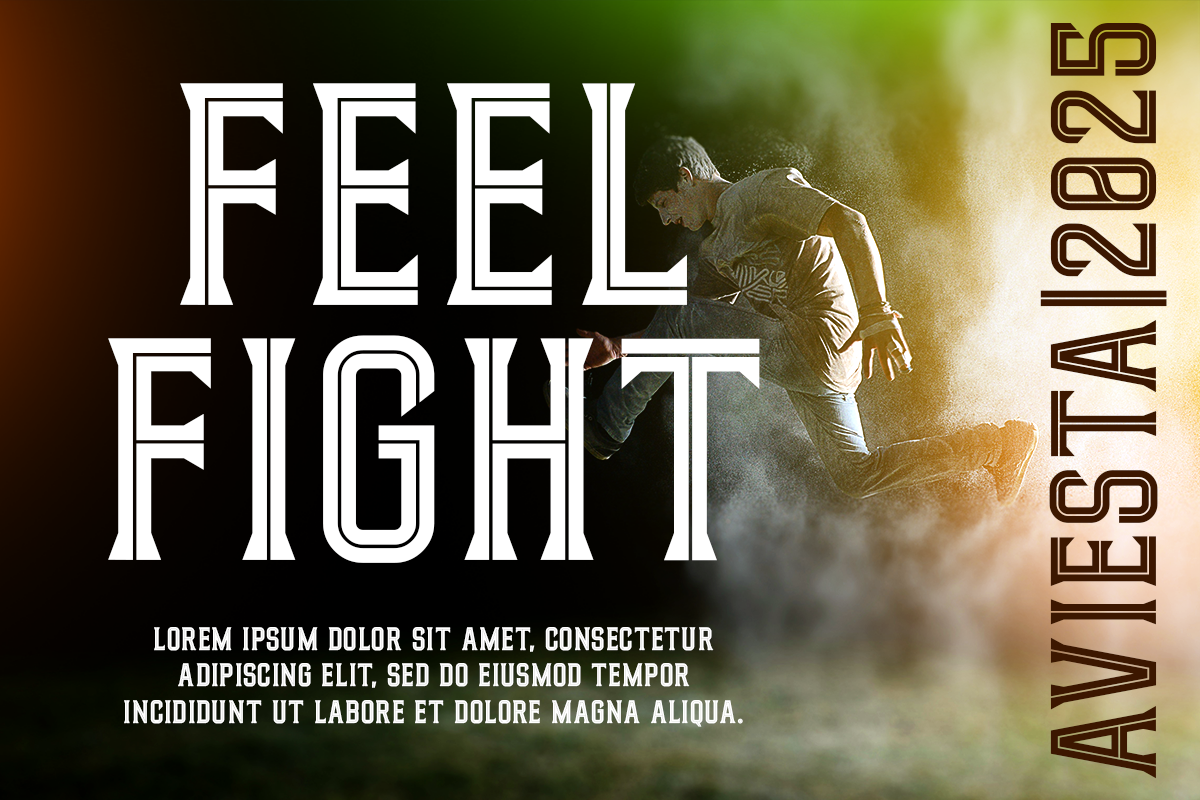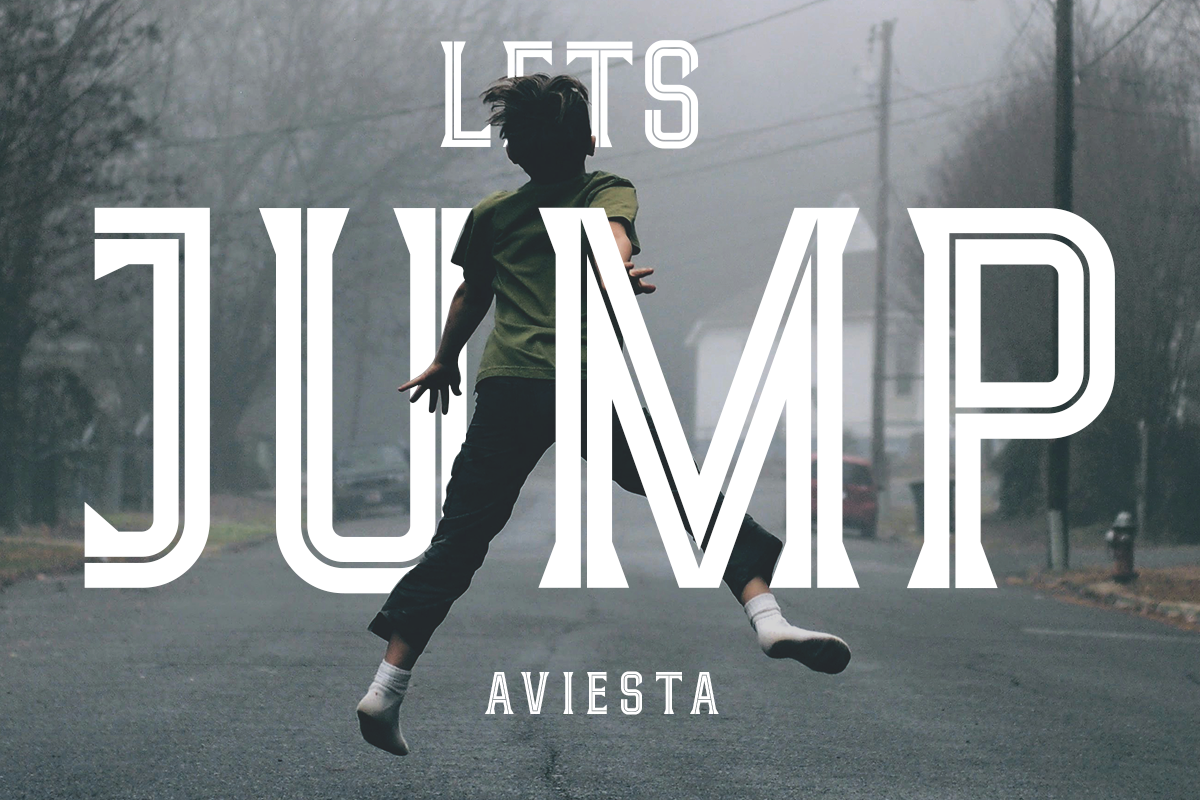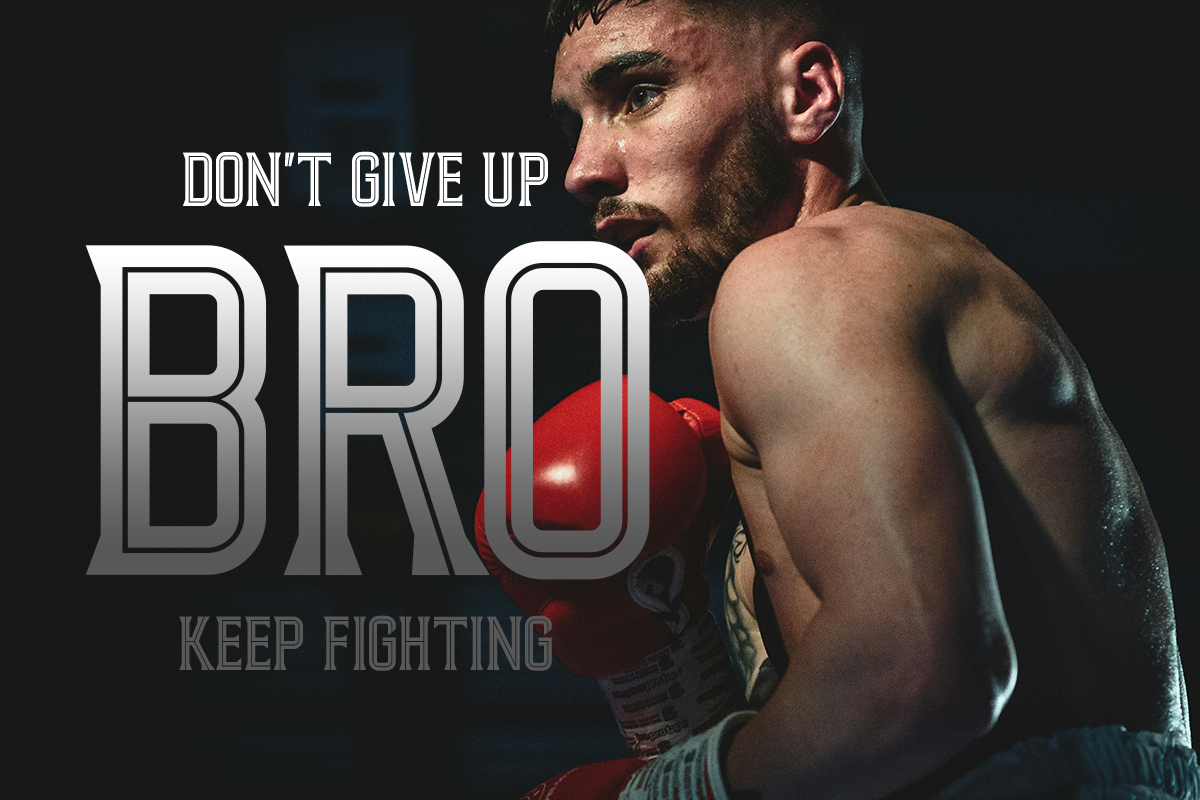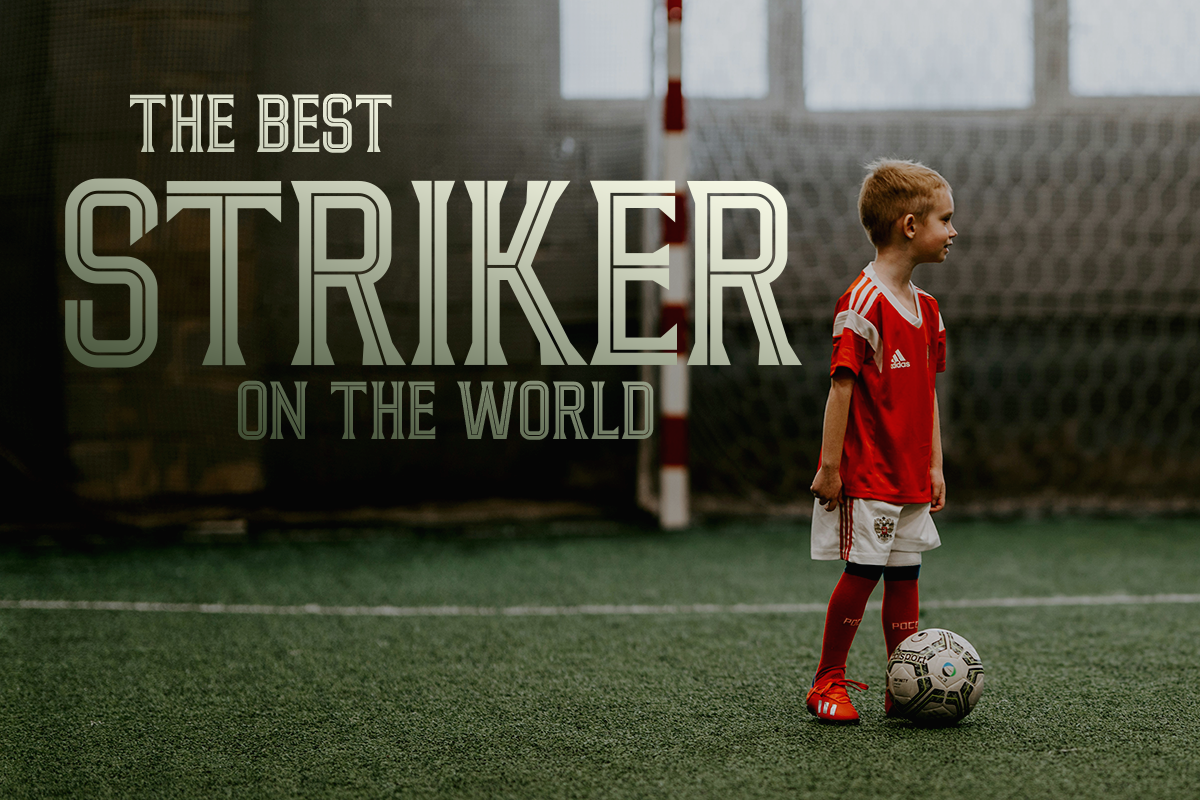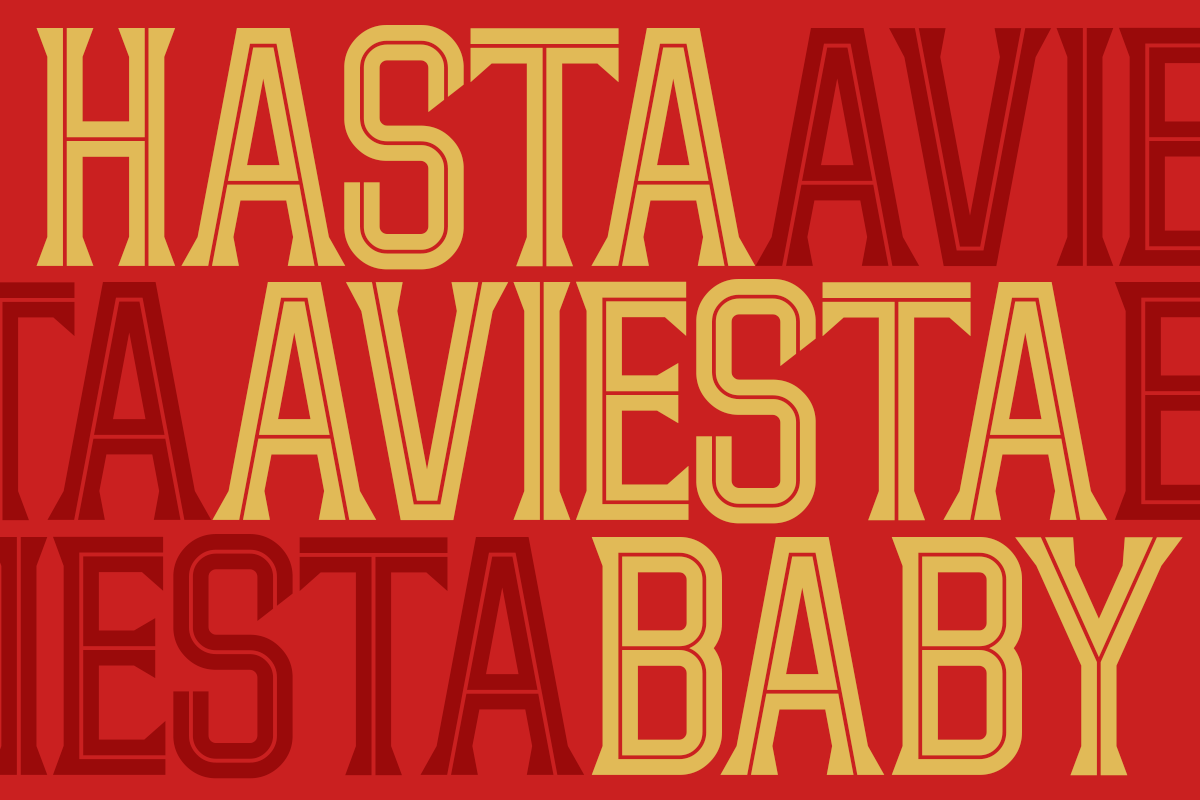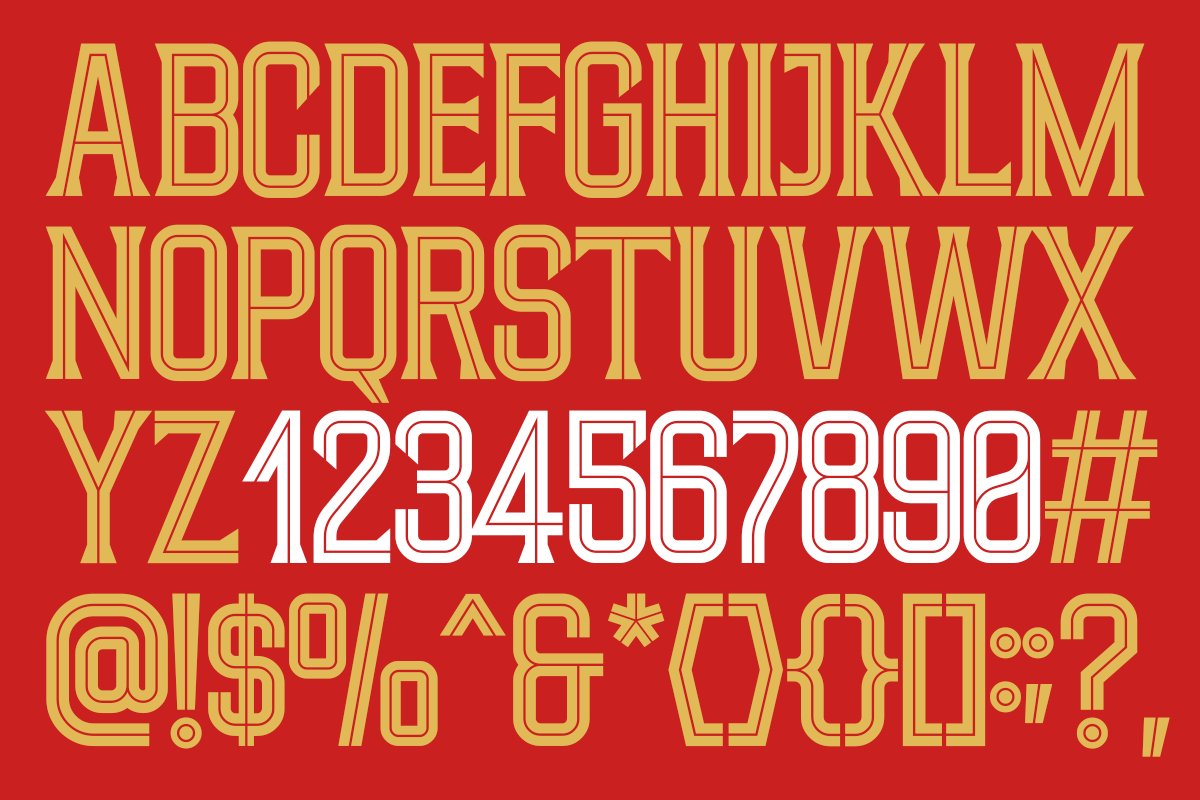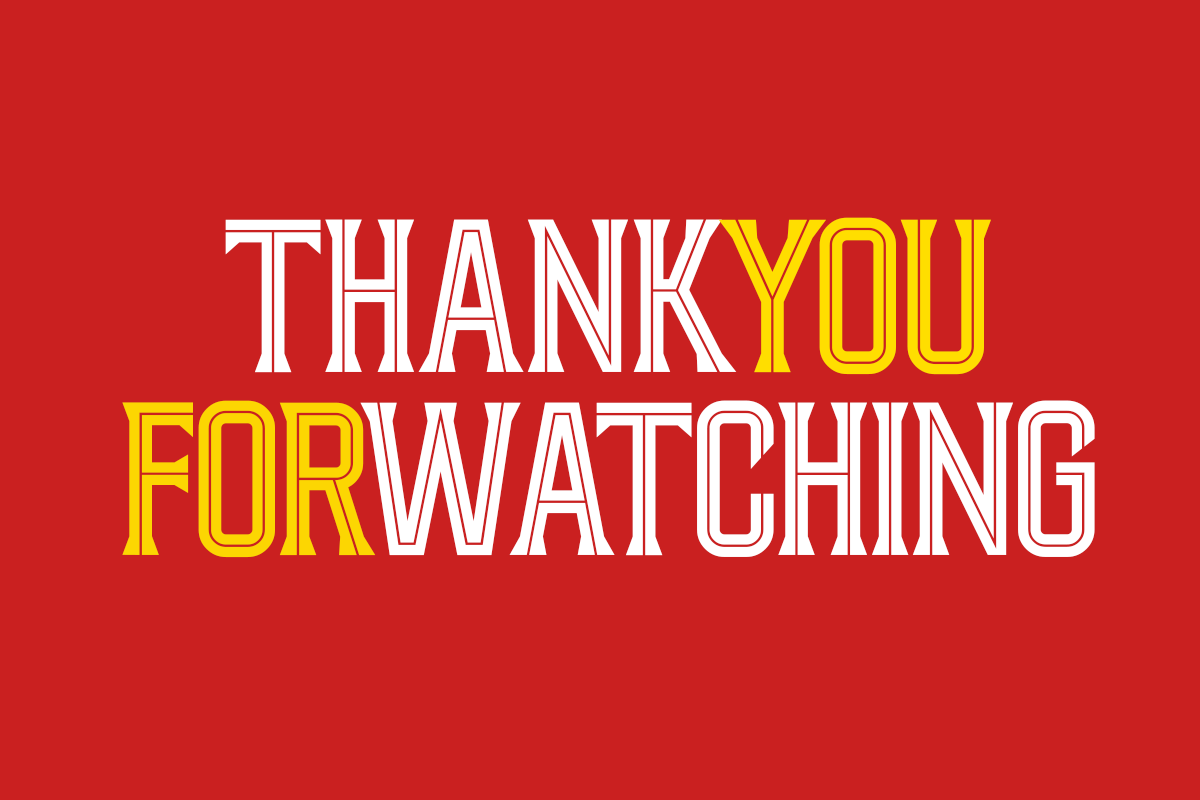
Aviesta A Modern Display Serif Font was created to present a simple and modern impression for anyone who sees it. This is in line with the characteristics of the letters in the Aviesta A Modern Display Serif Font with an outline in the middle of the letters and has a few serif feet. This font stands upright and exudes an aura of confidence. People who read various texts using this type of font do not need to struggle to be able to read and understand this font. In other words, the Aviesta A Modern Display Serif Font is easy to read. As the name implies, the Aviesta A Modern Display Serif Font is suitable for modern fonts. Those who like simple but still cool letters will choose this font. The modern feel can be used on hats, t-shirts, tickets, and knick-knacks. This font can be printed small or large and still looks good from close up or far away. This font can be used for magazine covers and reading books. Not only that, the Aviesta A Modern Display Serif Font can be used as a digital font. This font can be used as a video intro and outro title. This font is suitable for product branding. This font can be used as a product brand tag and advertising poster. This font can also be used as a business card. Based on the description of the Aviesta A Modern Display Serif Font function, this font can be used as a digital and print font. Our Display font collection is compatible for use as; Figma fonts, Canva fonts, Freepik fonts, and Adobe fonts. This font also works as a Windows and Apple font. For your social media needs, you can use and install fonts in our Sans Serif font collection to be used as Instagram Fonts, Facebook Fonts, and Twitter Fonts.